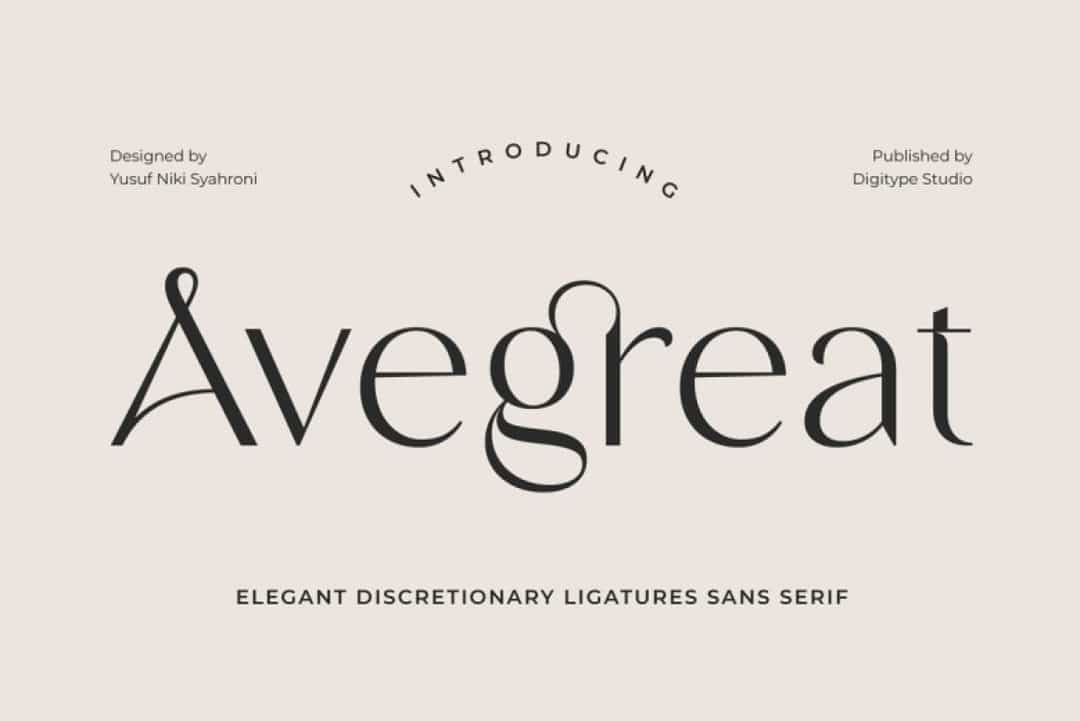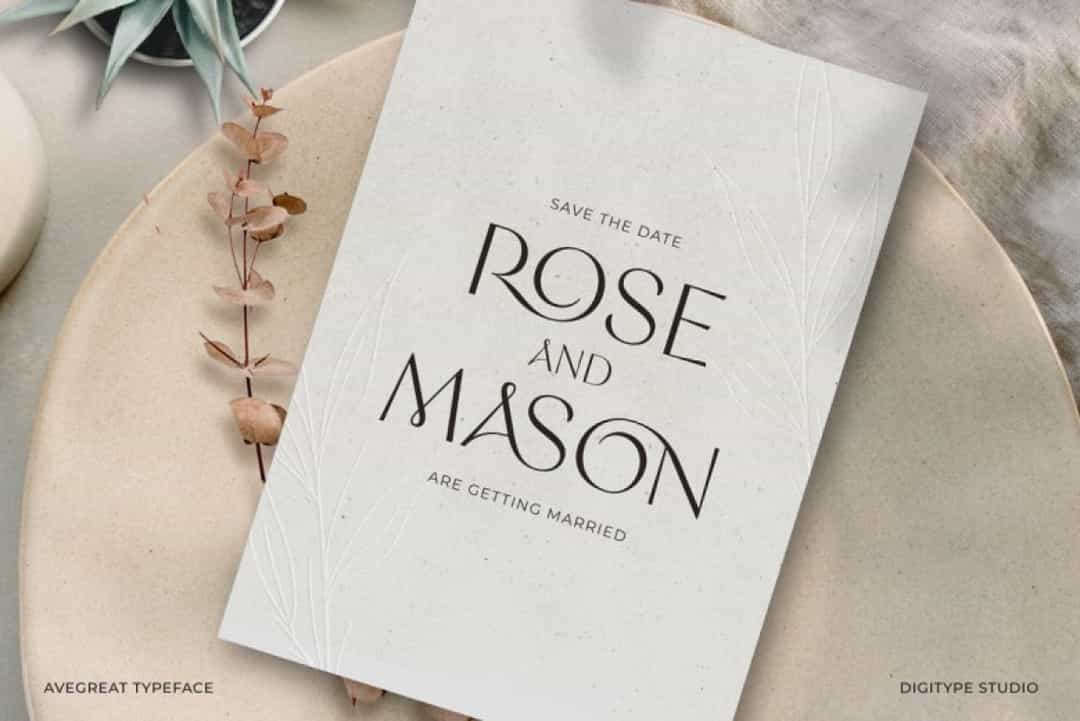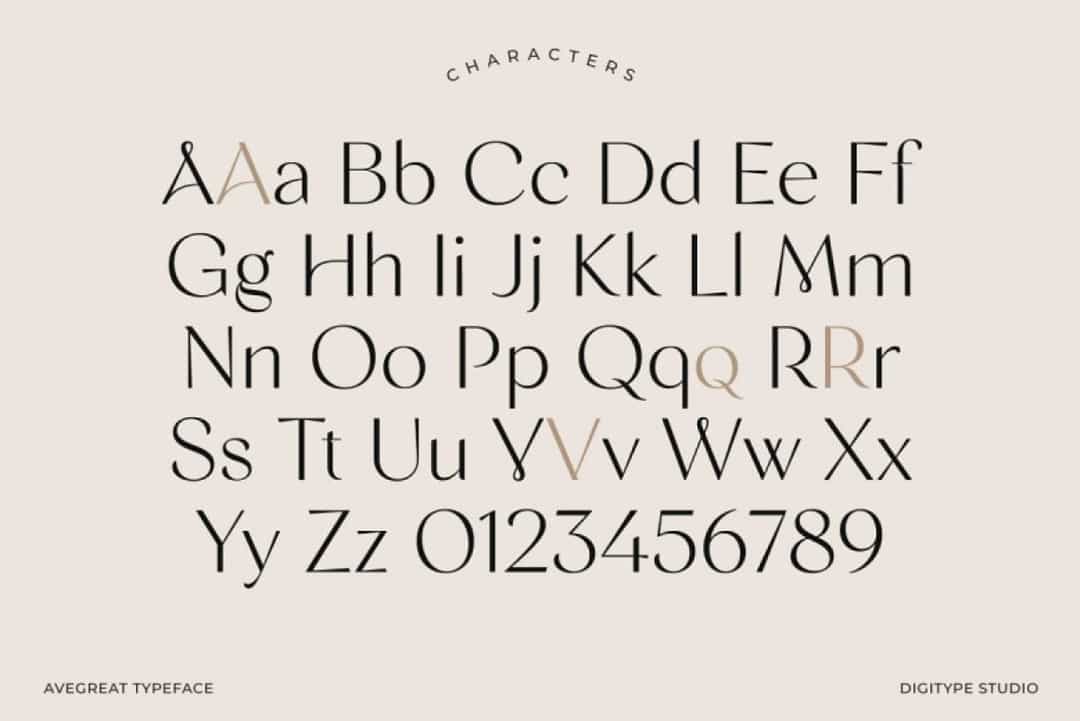
Avegreat is an attractive, modern sans serif font with an appealing and visually captivating design, enhanced by ligatures with discretionary meanings that creates an upscale serif font look. Perfect for applications spanning different levels of formality.